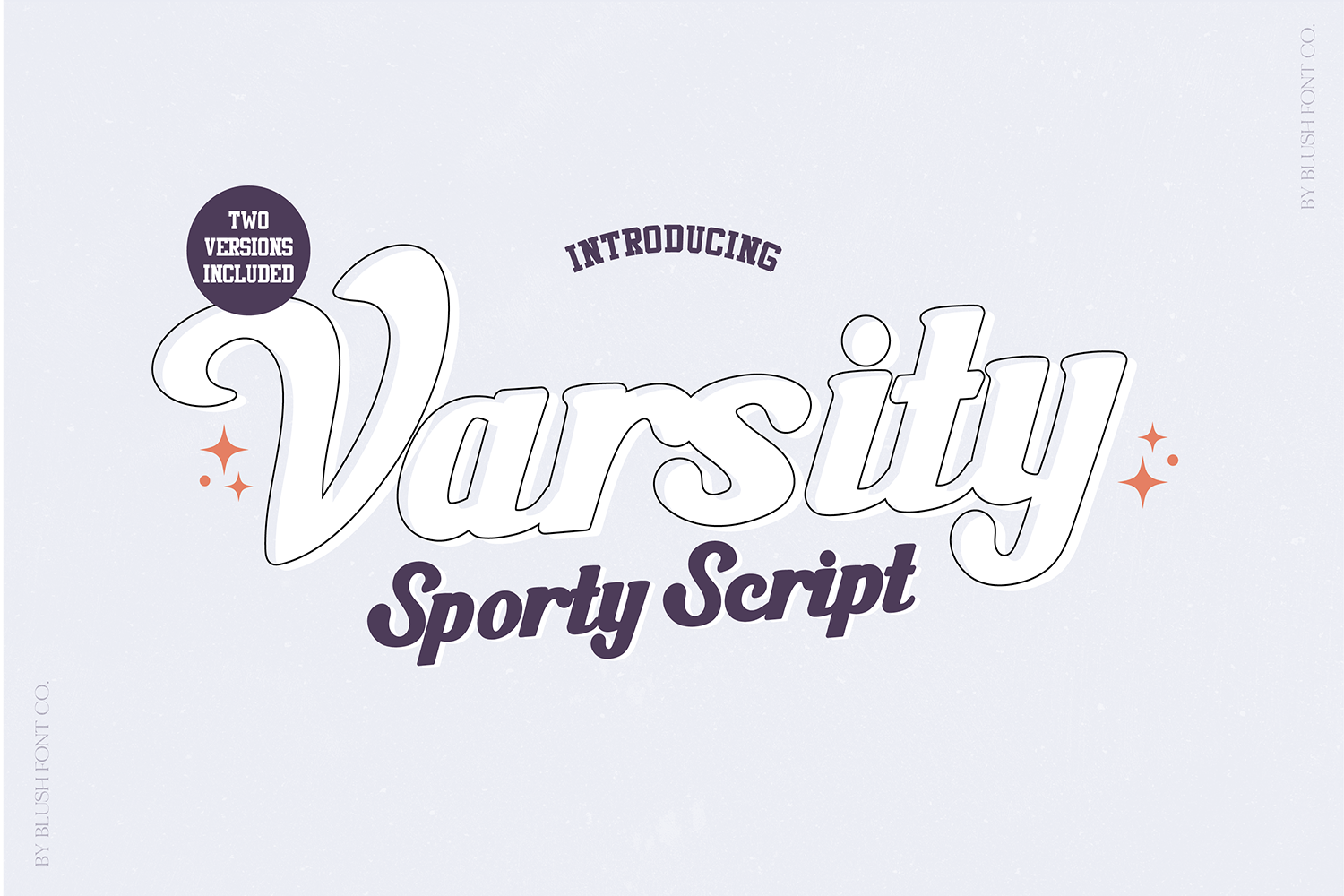
VARSITY Bold Sports Script Font
Varsity" a bold script sporty font. Includes 2 versions - outline and solid!
Font includes: Upper and lowercase glyphs, numbers, and basic punctuation.